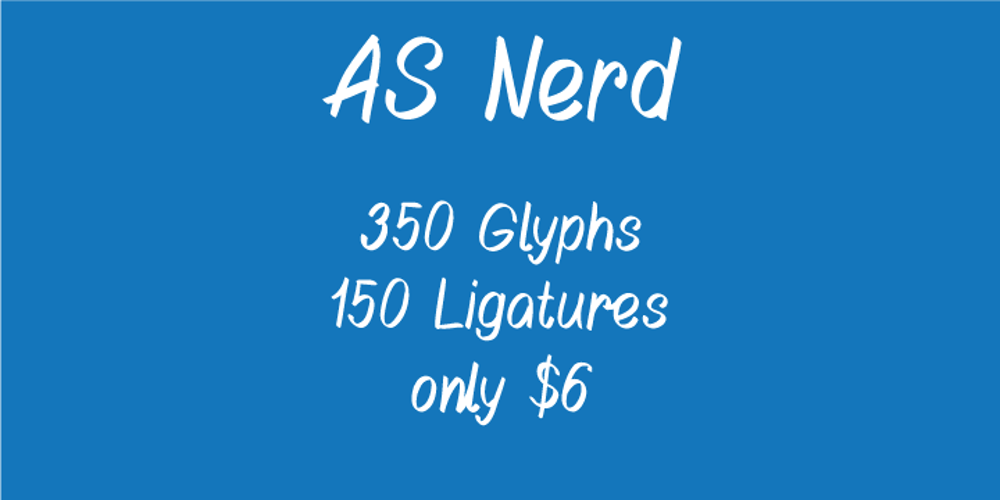
AS Nerd
AS Nerd font
AS Nerd Font Family was designed by Aleksander Sukiasov and published by Ten Waffle Studio. AS Nerd contains 1 styles and family package options. AS Nerd is a contemporary brush script. AS Nerd is a beautiful typeface that mimics true handwriting closely. Use AS Nerd, and your documents will look stunningly beautiful from now on. Perfect for printing your personal thoughts be they silly, pensive or absolutely nonsense!